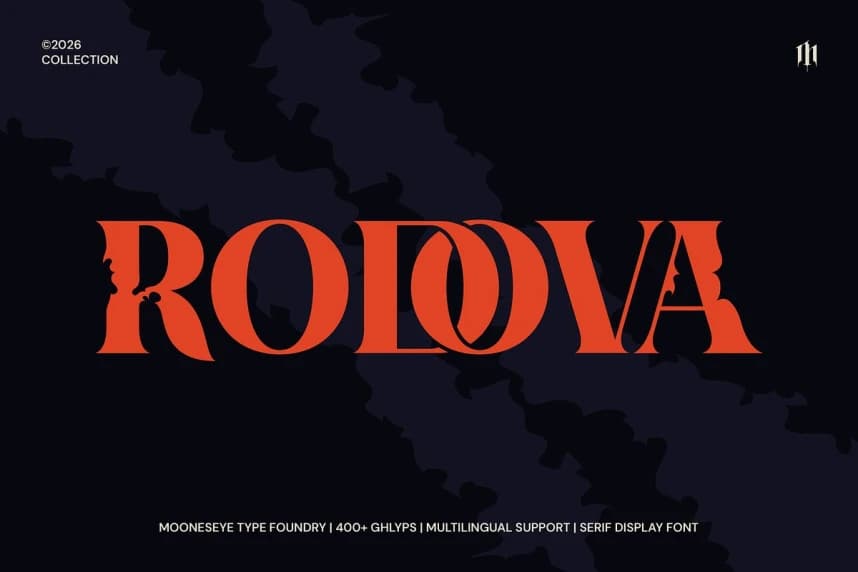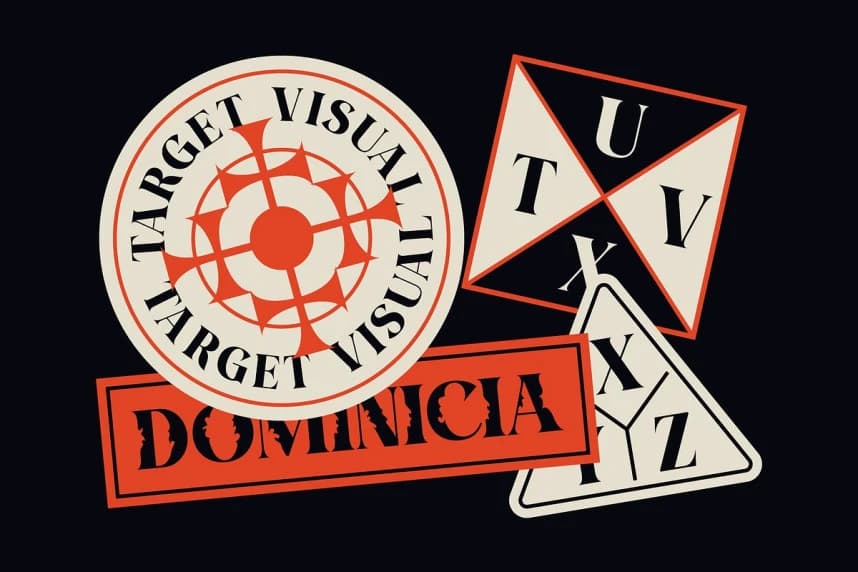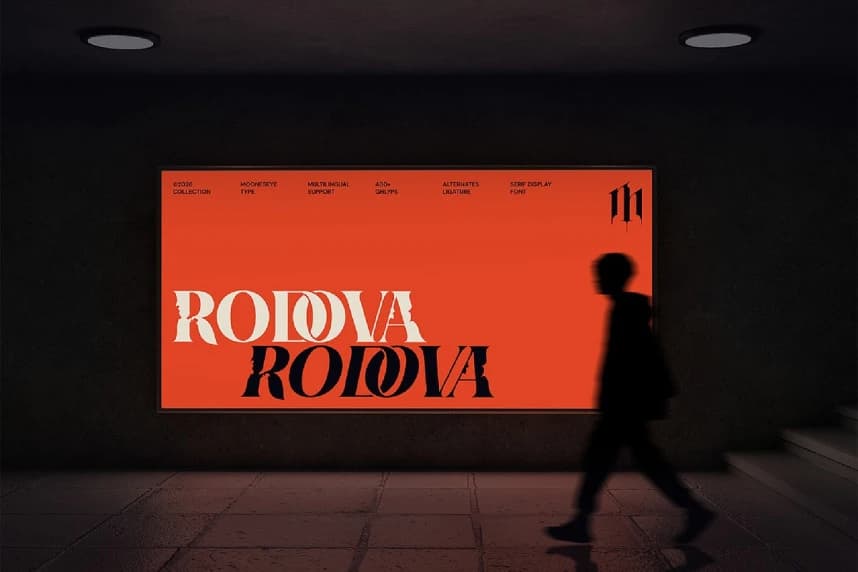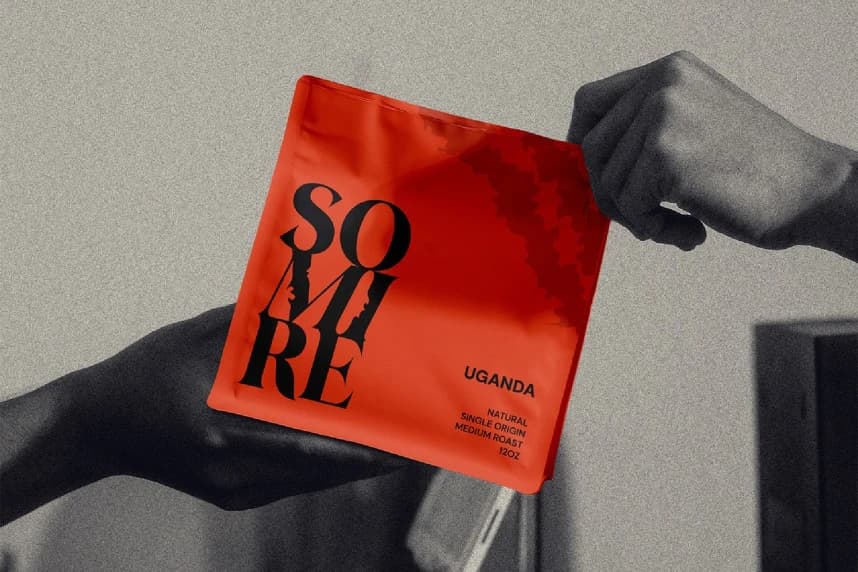
Rodova Font
Rodova Font, Step away from the ordinary and give your designs a sharp, high-contrast edge with Rodova. This isn't just another serif; it’s a dual-identity powerhouse designed to transition seamlessly from high-end luxury to underground grit.